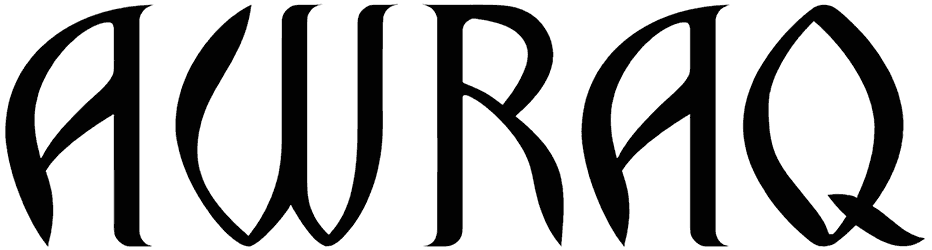
Awraq Font
Designed byOmar Shoikh
Awraq is a gothic font with a different look to implement your projects in a new way. This masterpiece resembles a combination of tree leaves, which are presented in two different weights.
For this reason, it can create a feeling close to nature in your writings and look very good in an environmental design. Using this font, you can appear differently from your competitors and encourage viewers to follow your posters, logos, and projects with a unique spirit.